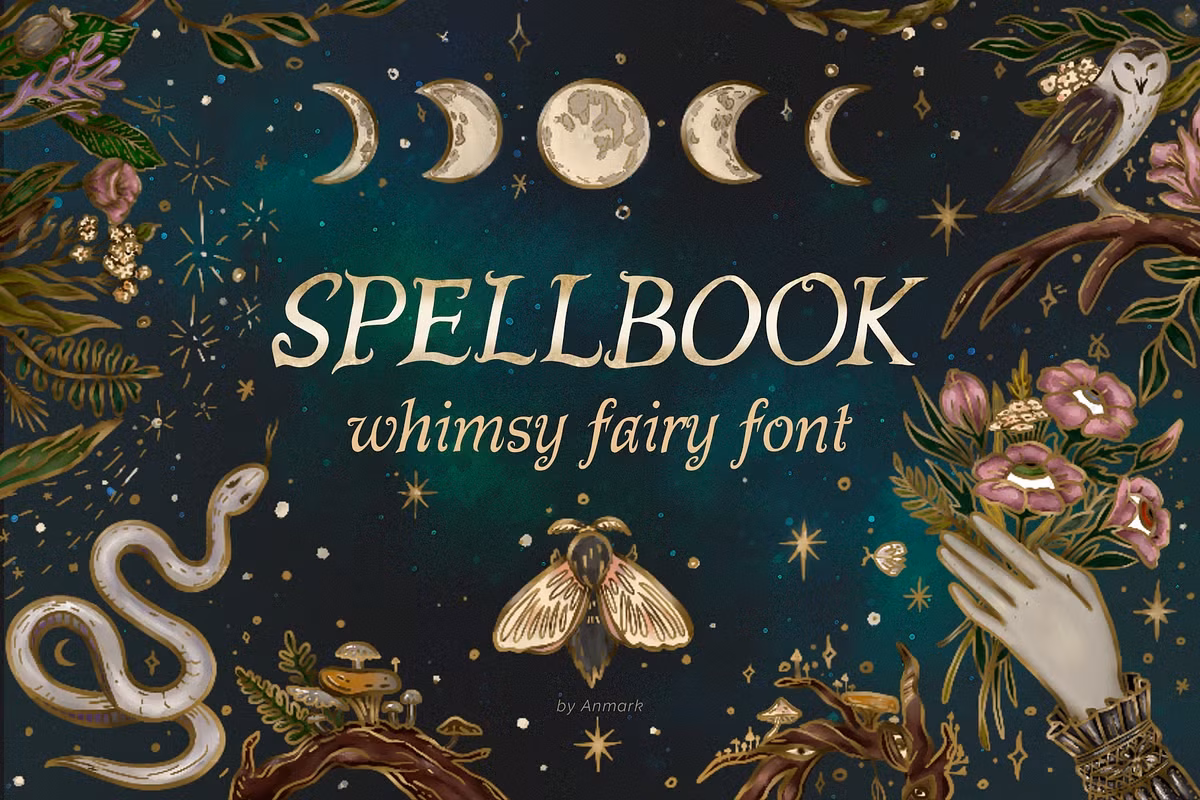
Spellbook – Whimsy Fairy Font Free Download is a magical and enchanting typeface inspired by fairytales, fantasy stories, and whimsical adventures. With its delicate curves, charming flourishes, and playful letterforms, this font is perfect for creating designs that capture the essence of fantasy, like book covers, magical branding, invitations, and whimsical art projects.
Spellbook brings a sense of wonder and creativity to any design, making it ideal for projects that revolve around fairies, magic, and storytelling. Whether you're designing for children’s books, fantasy-themed events, or creating dreamlike branding, this font adds the perfect touch of whimsy.
Let your designs come to life with the enchanting charm of Spellbook!